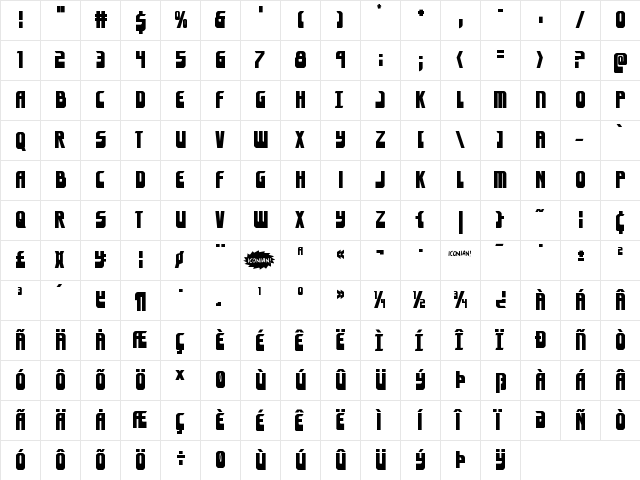
Eldebaran Regular Font Preview
Eldebaran Regular
Design Context for Eldebaran Typeface
Eldebaran is a composed and adaptable typeface that performs quietly and consistently across a wide range of design contexts.